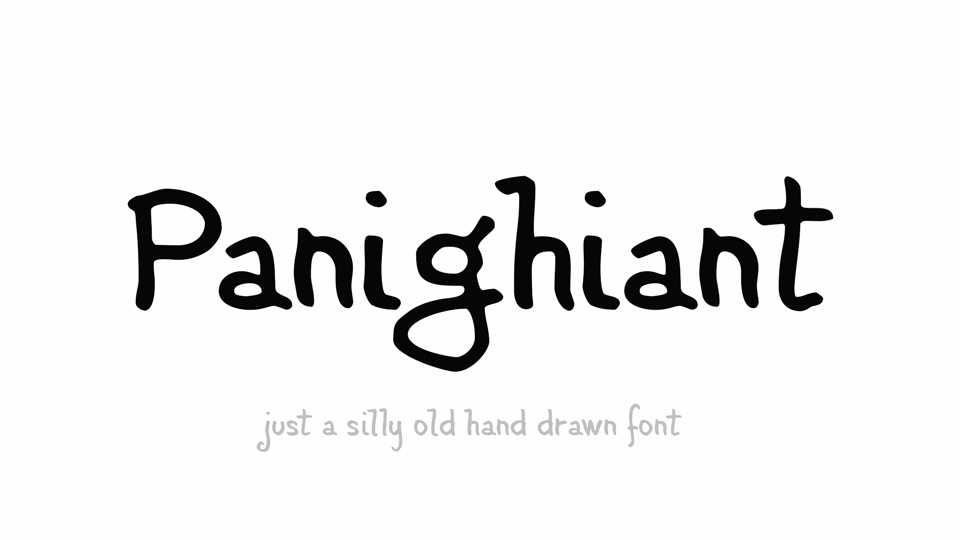
Download Panighiant font, just a silly old hand drawn typeface, created from a friend’s hand lettering while listening to jazz, drinking beers and talking nonsense.